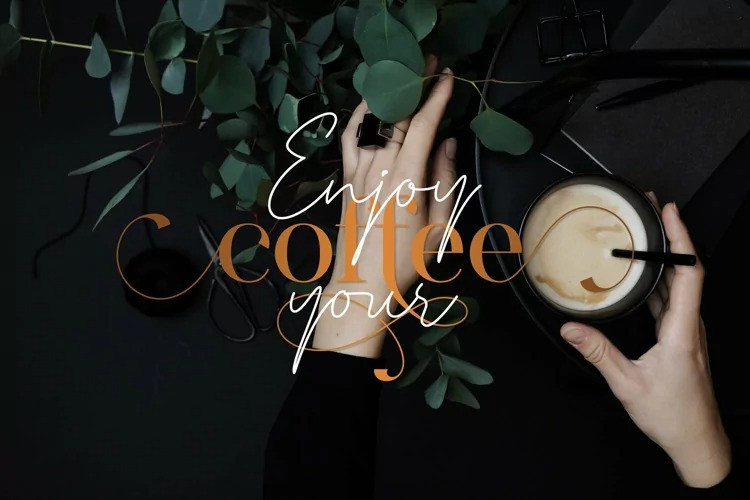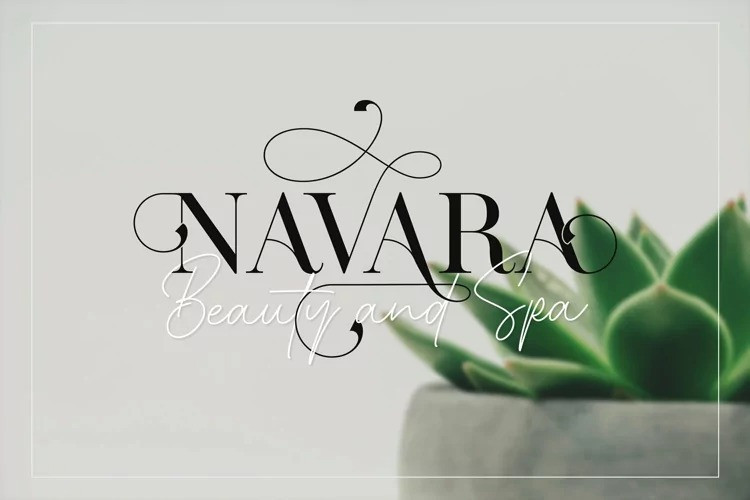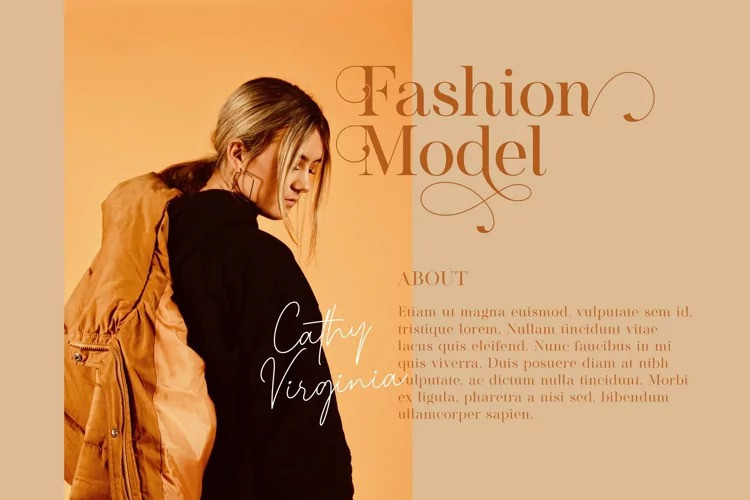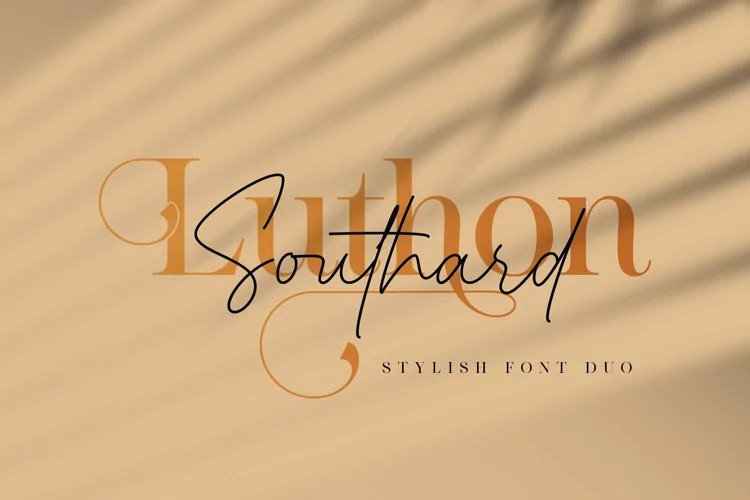
Luthon Southard Font Duo
A fancy font combination, minimalist signature, and elegant serif. Perfect for product packaging, branding project, magazine, social media, and much more. Add this font to your favorite creative ideas and notice how it makes them come alive!